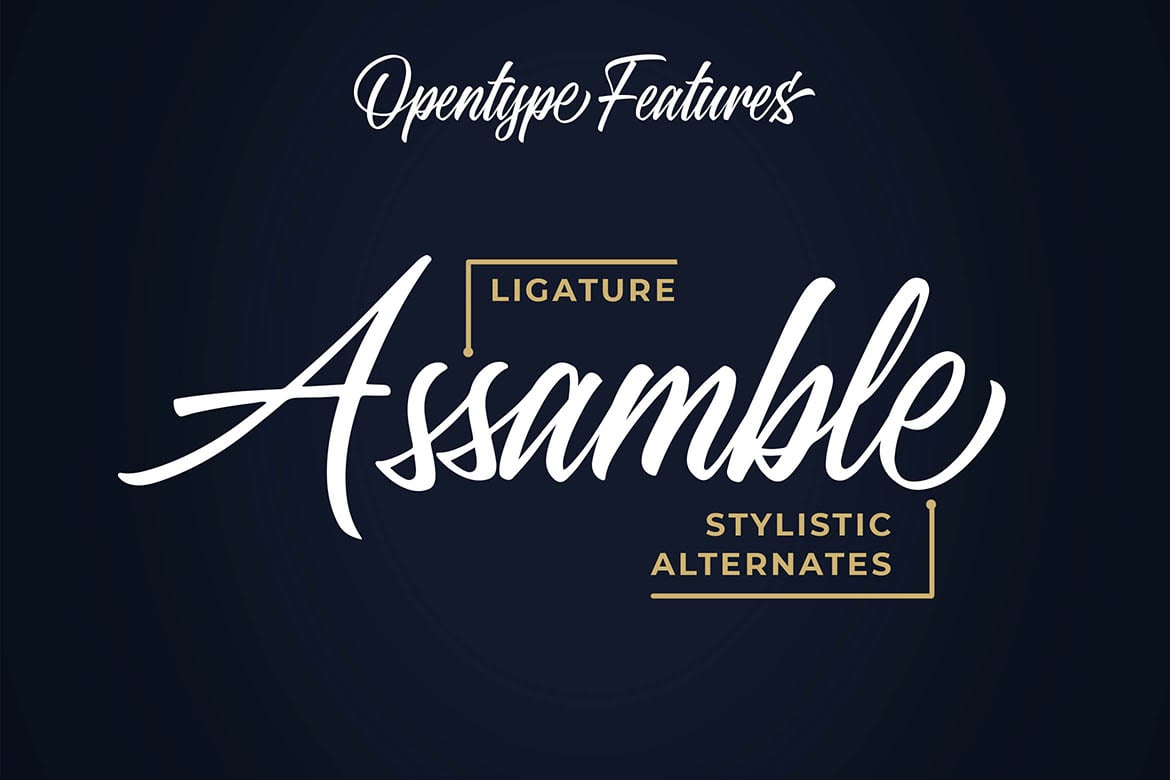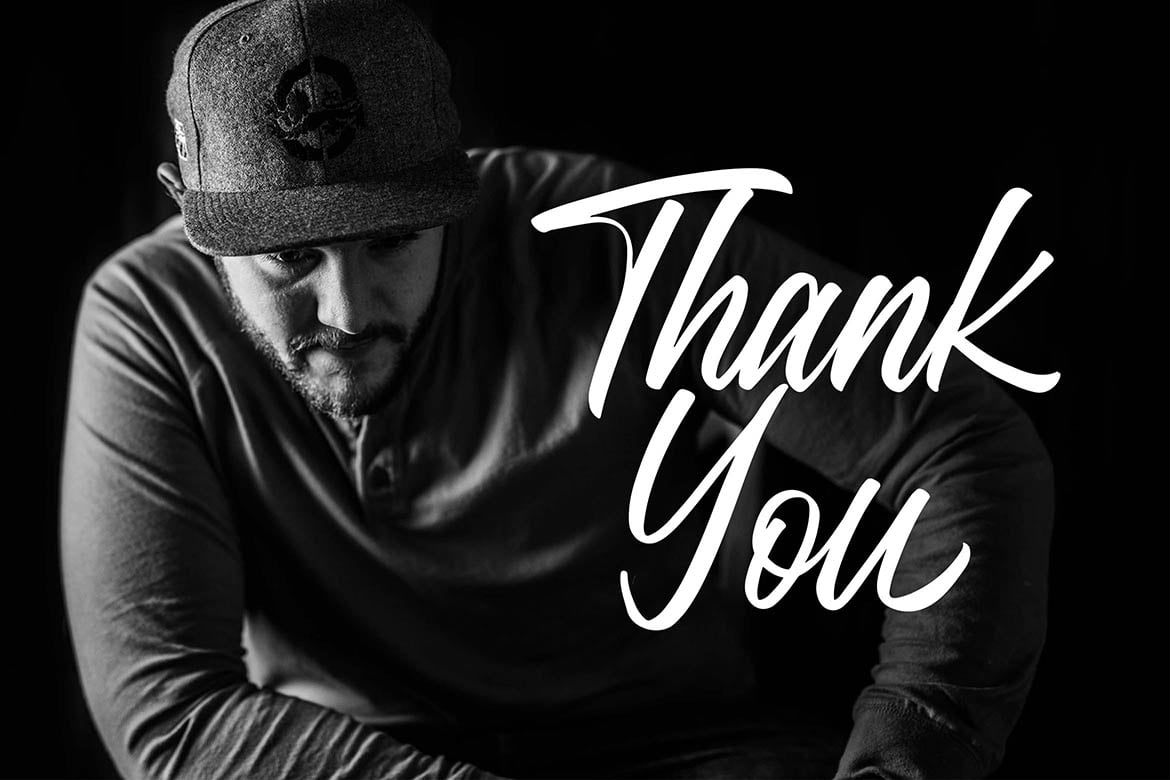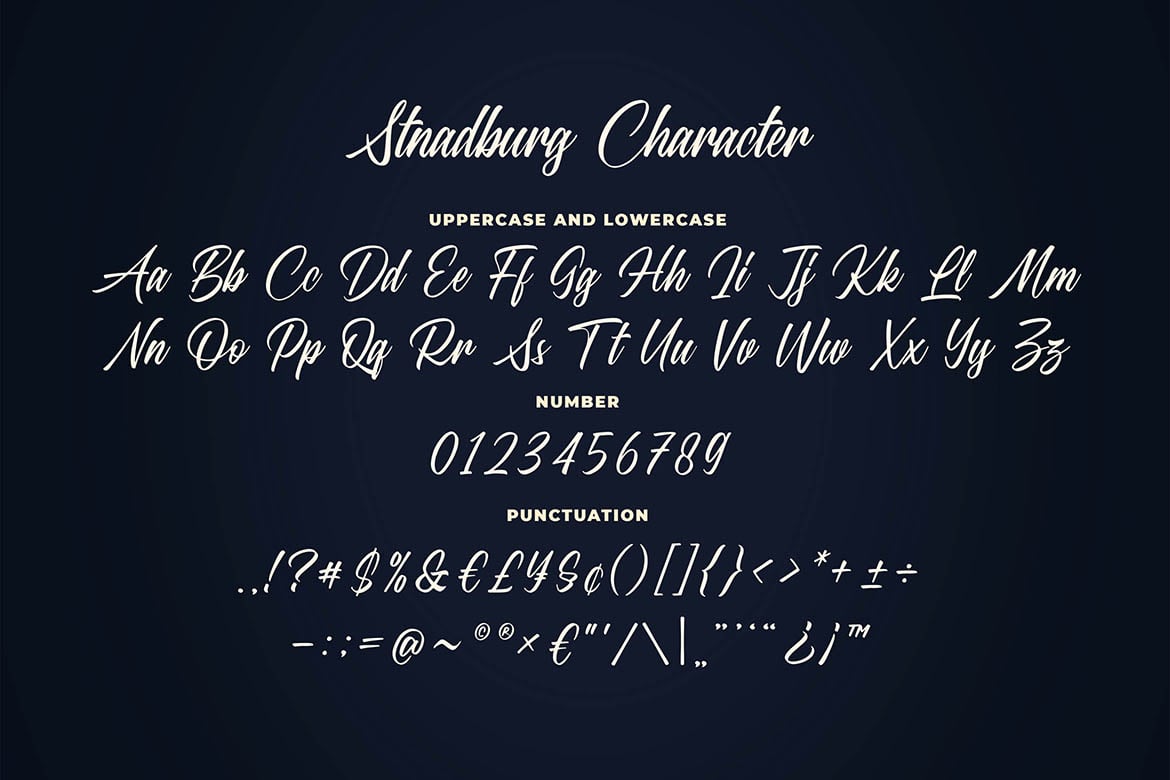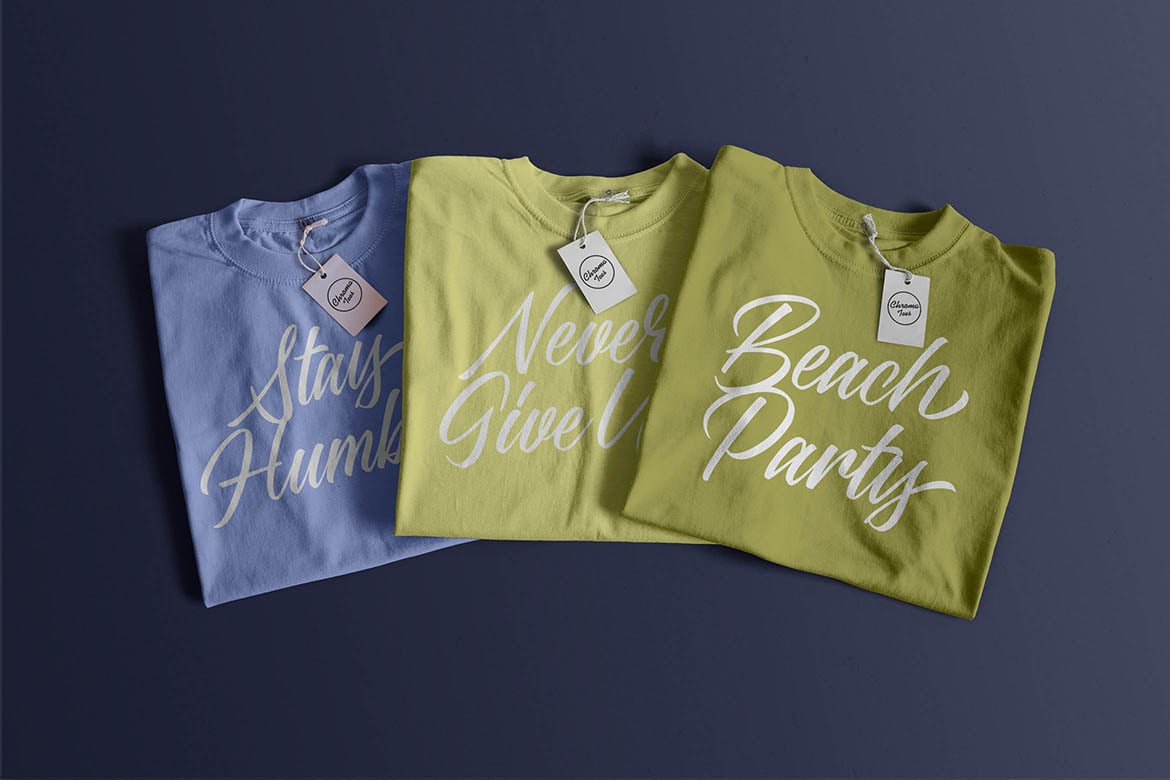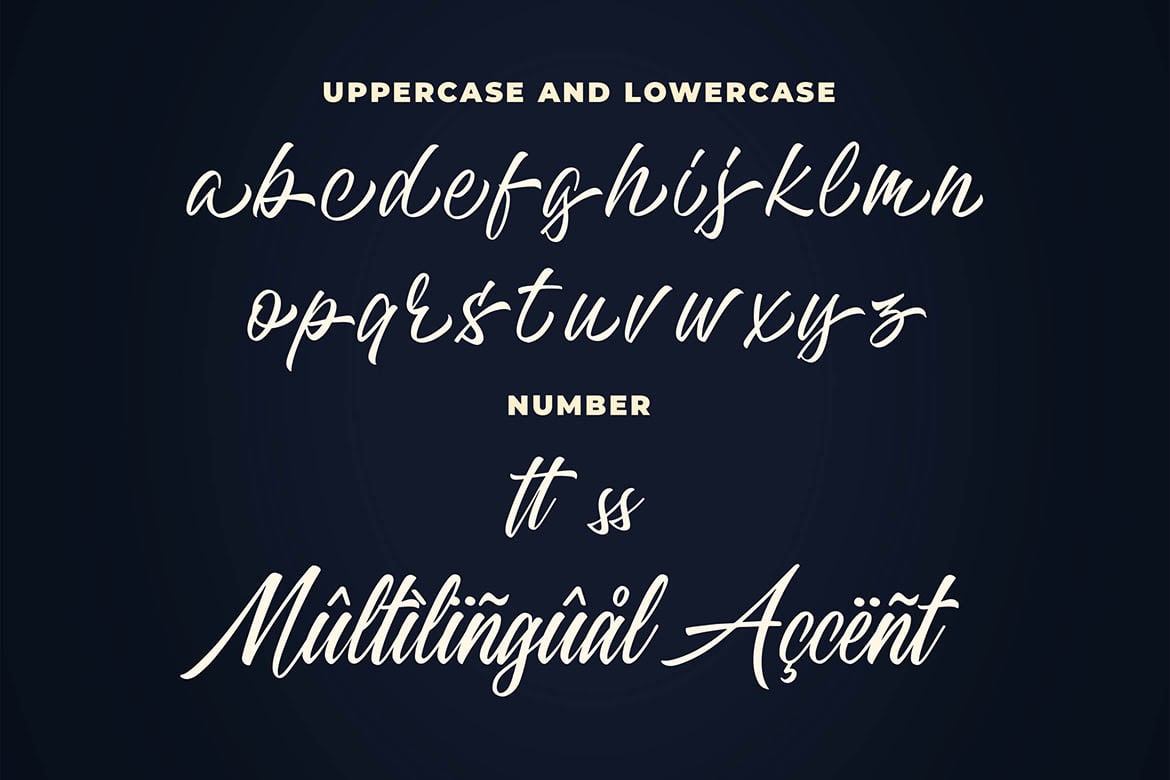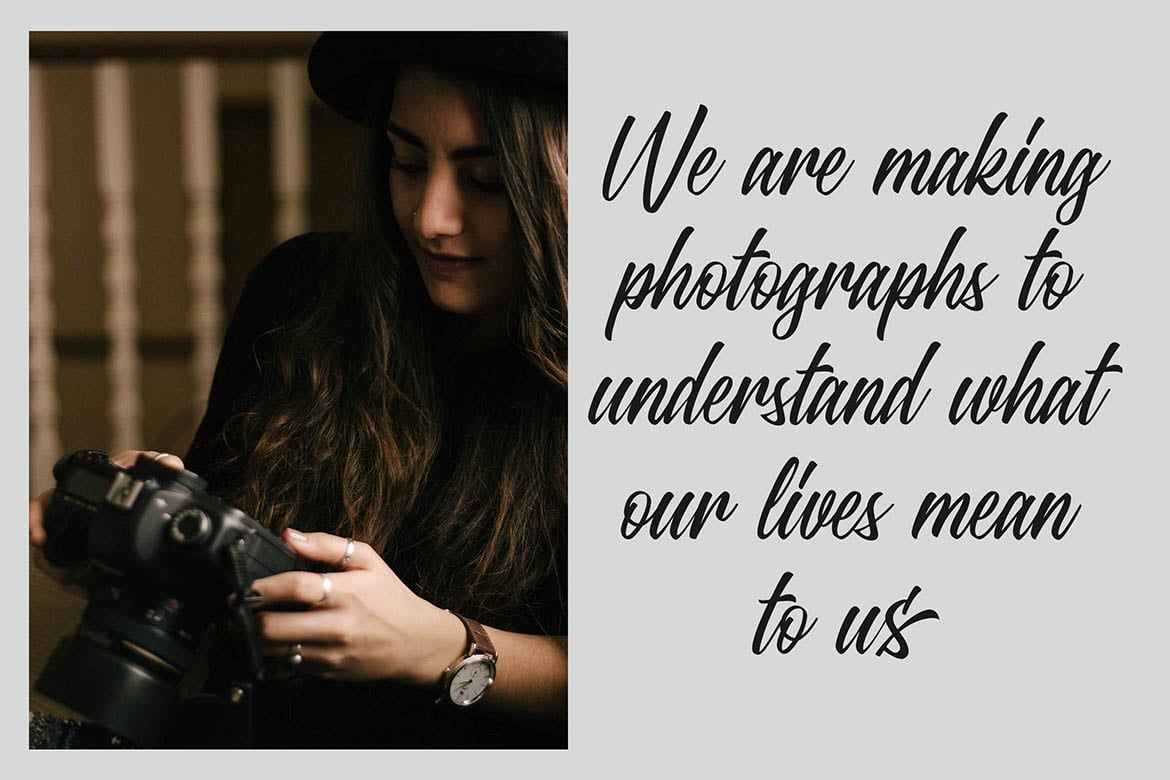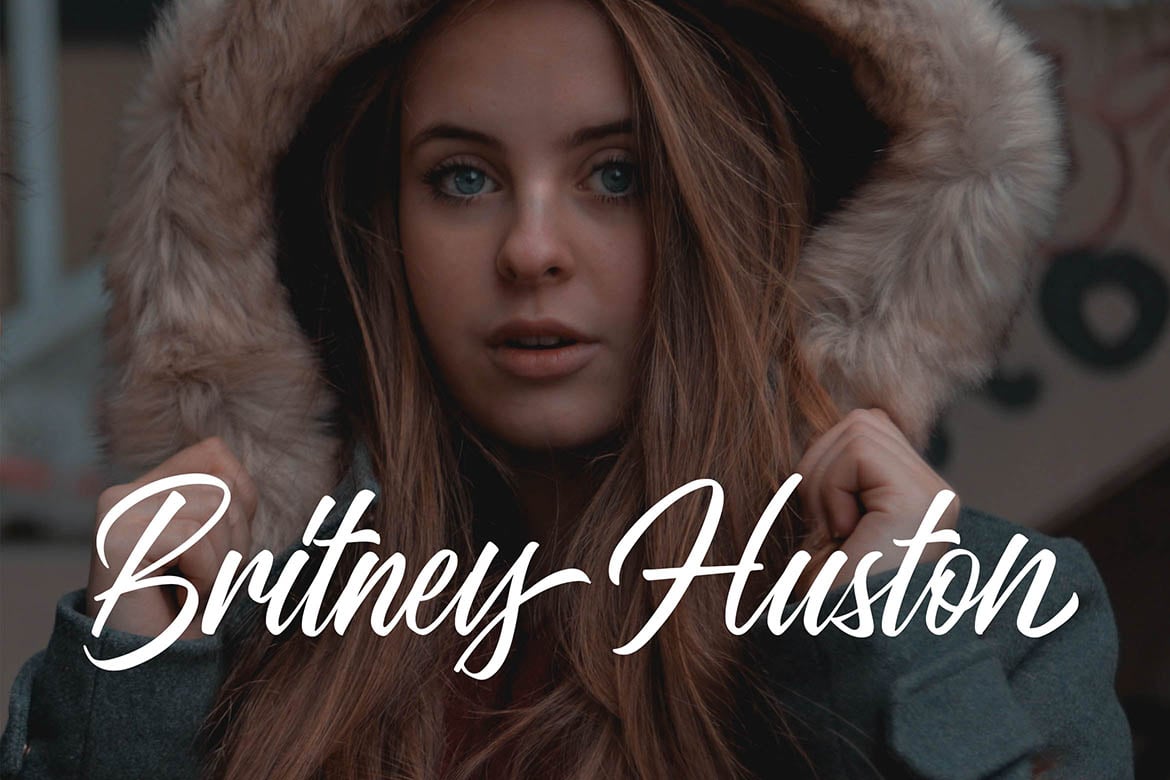
Standberg Script Font
Introducing of our new product the name is Standberg Script Fontt. Standberg inspired by clean brush style this font is a fun theme very good for signature, poster, fashion, wedding, branding etc
MULTILINGUAL ACCENT :
ŽžŠŒšŸÀÁÂÃÄÅÆÇÈÉÊËÌÍÎÏÐŁÑÒÓÔÕÖØÙÚÛÜÝßàáâãäåæçèéêëìíîïłñòóôõöøùúûüýÿ